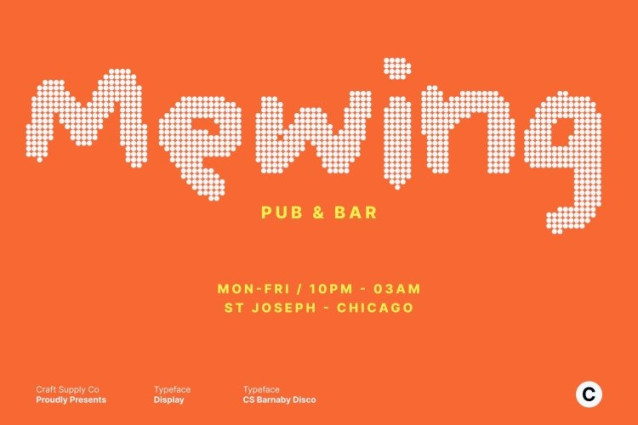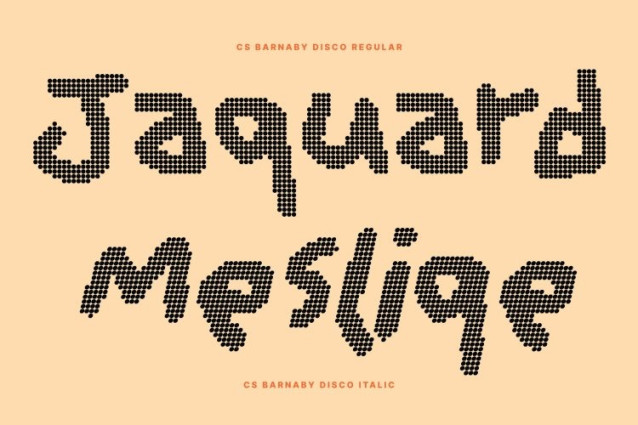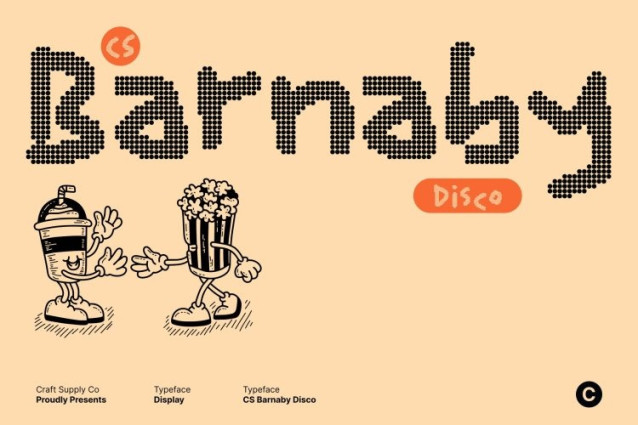
CS Barnaby Disco Font
CS Barnaby Disco Font This is a bold, messy sans serif font designed to look delightfully irregular, energetic, and freely scribbled. Its intentionally chaotic strokes capture the spontaneous spirit of hand-drawn lettering, infused with the joyful attitude of disco-era design. Every letter feels loud, confident, and full of motion bringing playful rhythm and retro excitement to the page.
Irregular Shapes with Retro Hand-Scribbled Charm
The true charm of this font lies in its wild, uneven construction. Each character appears drawn with quick, expressive strokes, echoing the carefree creativity of the 70s to early 80s. This imperfect structure creates a lively visual beat, making designs feel youthful, dynamic, and authentically handcrafted.
Playful Boldness with Disco Energy
With its bold weight and quirky forms, this font radiates fun and positivity. The messy style enhances its cheerful personality, reflecting the energy, freedom, and party atmosphere of the disco dance floor. It’s perfect for designs that want to feel expressive, upbeat, and full of life where creativity takes center stage.
Perfect for Cheerful, Retro-Inspired Creative Projects
Ideal for kids’ themes, playful branding, posters, packaging, event graphics, and artistic layouts, this font adds instant personality and warmth. Whether used for titles, doodle-inspired visuals, or retro-themed designs, this font turns every project into a bold, joyful celebration of creativity and movement.